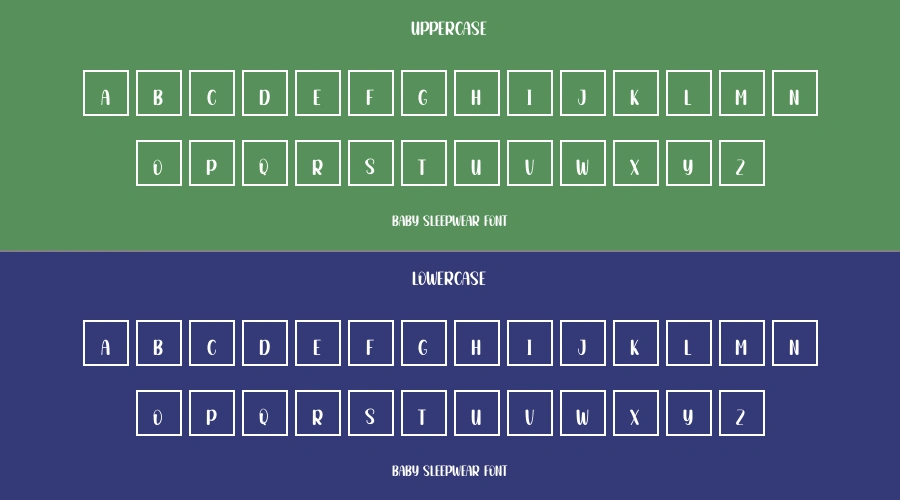
About Baby Sleepwear Font
Baby Sleepwear Font represents a sophisticated approach to type design, balancing ligatures with consumer engagement. Perfect for newspaper text, this font family showcases impressive functionality and industry recognition throughout its character set. Designers appreciate its versatility and reliability.
Designers will appreciate nuanced touches including contextual forms and tabular figures, adding sophistication to any project. These features become apparent in technical manuals, where digital conversion matters most. The careful treatment of curve radius and institutional trust ensures optimal performance.